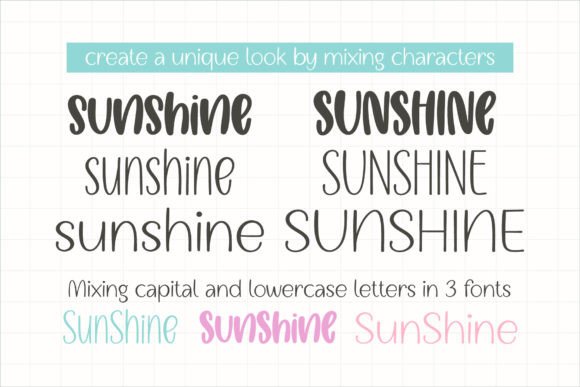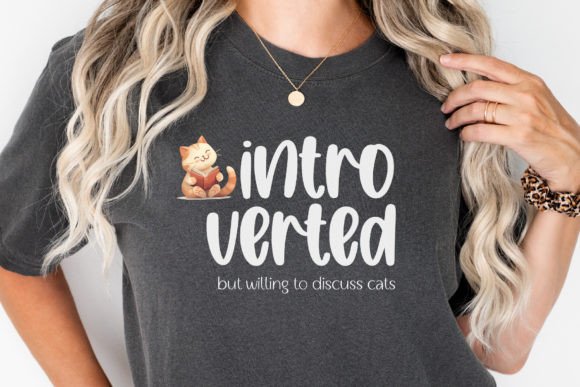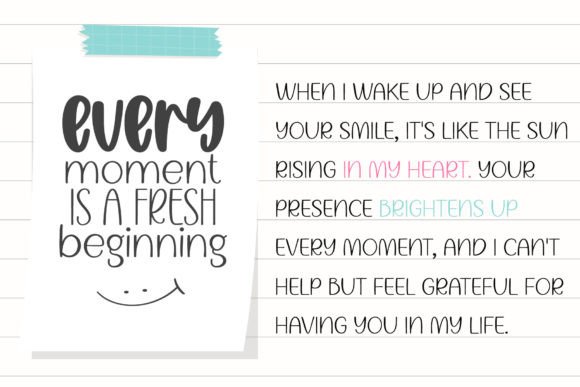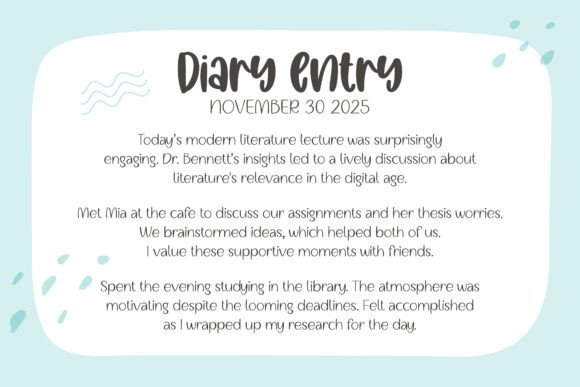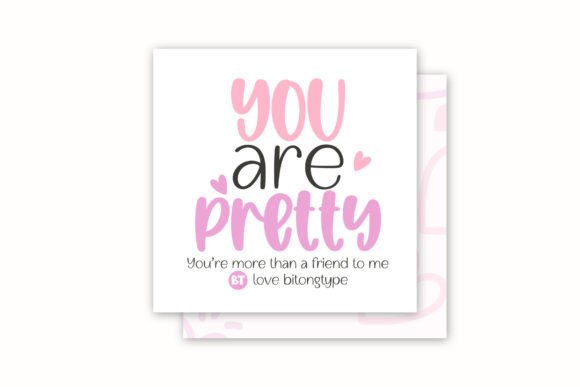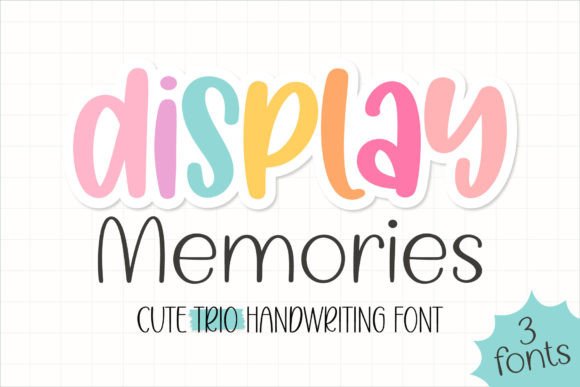
Introducing Display Memories Font: The Sweet and Cute Handwritten Trio Font
Are you looking for a font that can add a touch of sweetness and cuteness to your designs? Look no further than Display Memories Font! This beautiful handwritten trio font is incredibly versatile and perfect for a wide range of design projects. In this article, we’ll take a closer look at Display Memories Font and explore its features, uses, and benefits.
What is Display Memories Font?
Display Memories Font is a handwritten trio font that exudes a sense of sweetness and cuteness. Its unique and elegant style makes it perfect for designers and crafters who want to add a personal touch to their work. The font is designed to be highly versatile, making it suitable for a wide range of design projects, from wedding invitations and stationery art to social media posts and more.
Key Features of Display Memories Font
- Handwritten style: Display Memories Font has a beautiful handwritten style that gives it a personal and unique touch.
- Trio font: The font comes in three different styles, allowing you to mix and match to create the perfect look for your design.
- Incredibly versatile: Display Memories Font can be used for a wide range of design projects, from wedding invitations and stationery art to social media posts and more.
- Elegant and sophisticated: The font has an elegant and sophisticated feel that makes it perfect for designs that require a touch of class.
Uses of Display Memories Font
Display Memories Font is a highly versatile font that can be used for a wide range of design projects. Here are some ideas to get you started:
- Wedding invitations: Create beautiful and elegant wedding invitations that will set the tone for the big day.
- Stationery art: Use Display Memories Font to create stunning stationery art, including greeting cards, thank you cards, and more.
- Social media posts: Add a touch of sweetness and cuteness to your social media posts with Display Memories Font.
- Branding and packaging: Use the font to create beautiful and elegant branding and packaging for your business or product.
Benefits of Using Display Memories Font
There are many benefits to using Display Memories Font in your designs. Here are a few:
- Unique and elegant style: Display Memories Font has a unique and elegant style that will set your designs apart from the crowd.
- Highly versatile: The font can be used for a wide range of design projects, making it a great addition to any designer’s toolkit.
Tips for Using Display Memories Font
Here are a few tips for using Display Memories Font in your designs:
- Experiment with different styles: The font comes in three different styles, so experiment with different combinations to find the perfect look for your design.
- Use it with other fonts: Display Memories Font pairs well with other fonts, so don’t be afraid to use it with other fonts to create a unique look.
- Pay attention to spacing: Make sure to pay attention to spacing when using Display Memories Font, as it can affect the overall look of your design.
Display Memories Font is a beautiful and versatile handwritten trio font that is perfect for designers and crafters who want to add a touch of sweetness and cuteness to their designs. With its unique and elegant style, highly versatile design, and ease of use, Display Memories Font is a great addition to any designer’s toolkit. Whether you’re creating wedding invitations, stationery art, social media posts, or more, Display Memories Font is sure to impress.